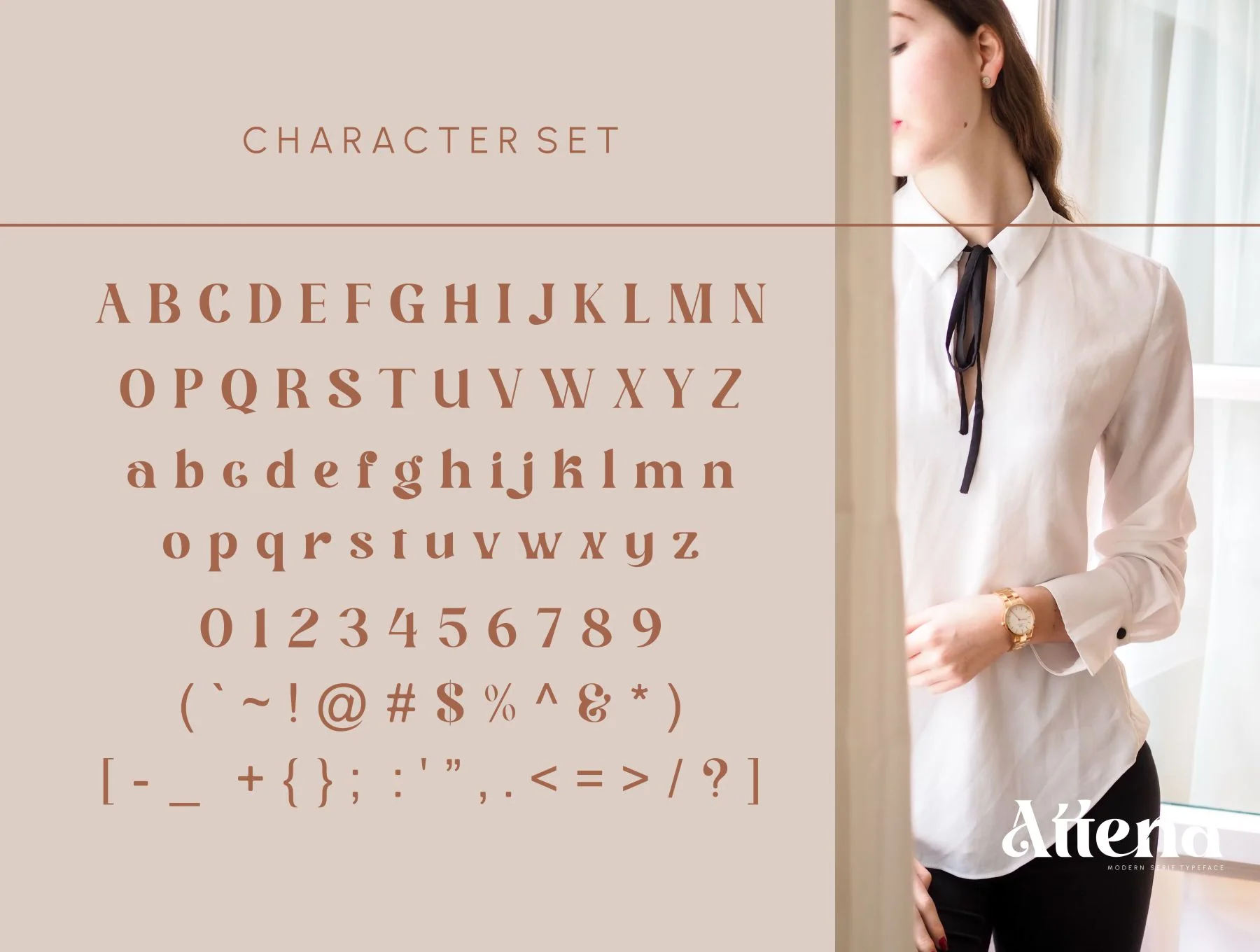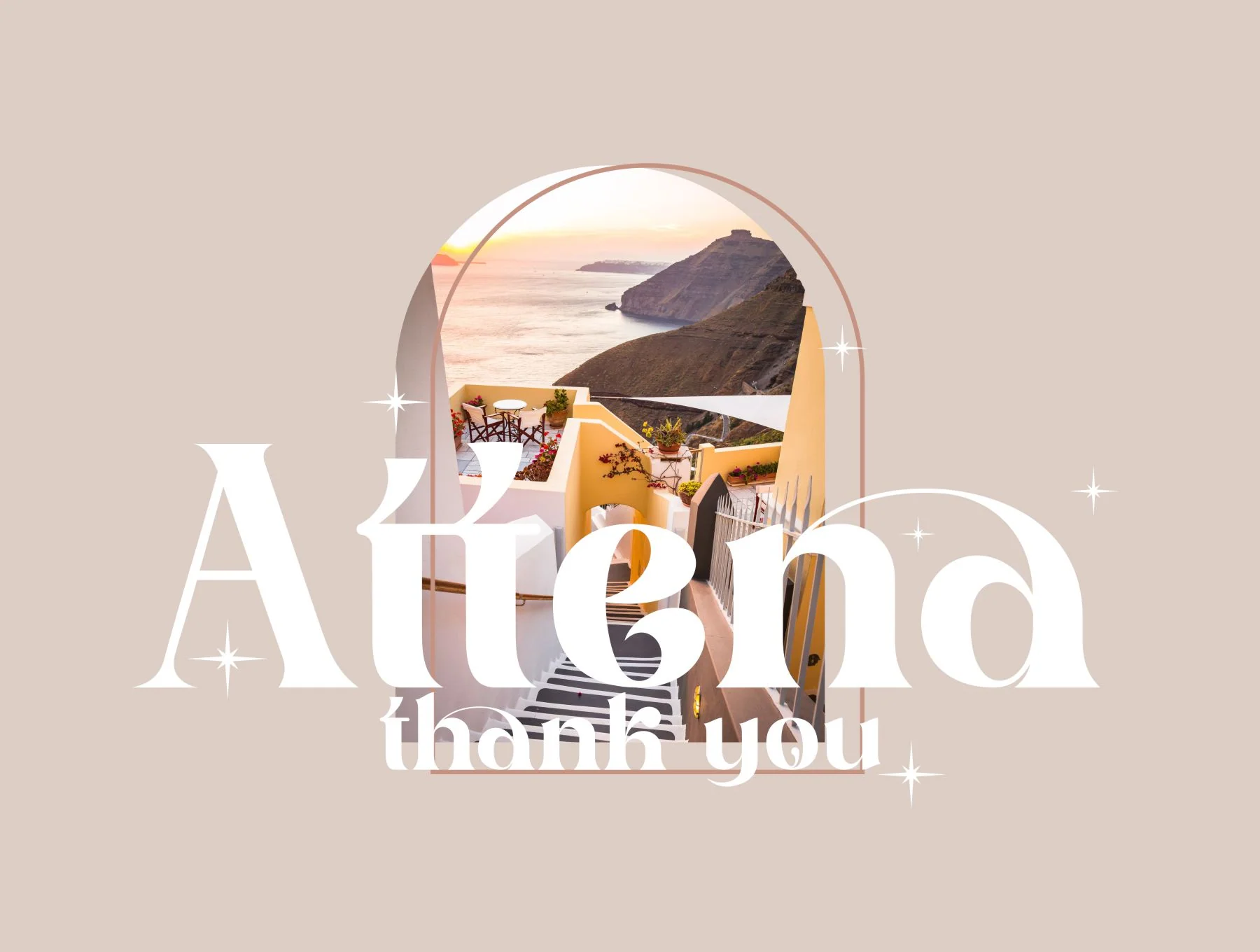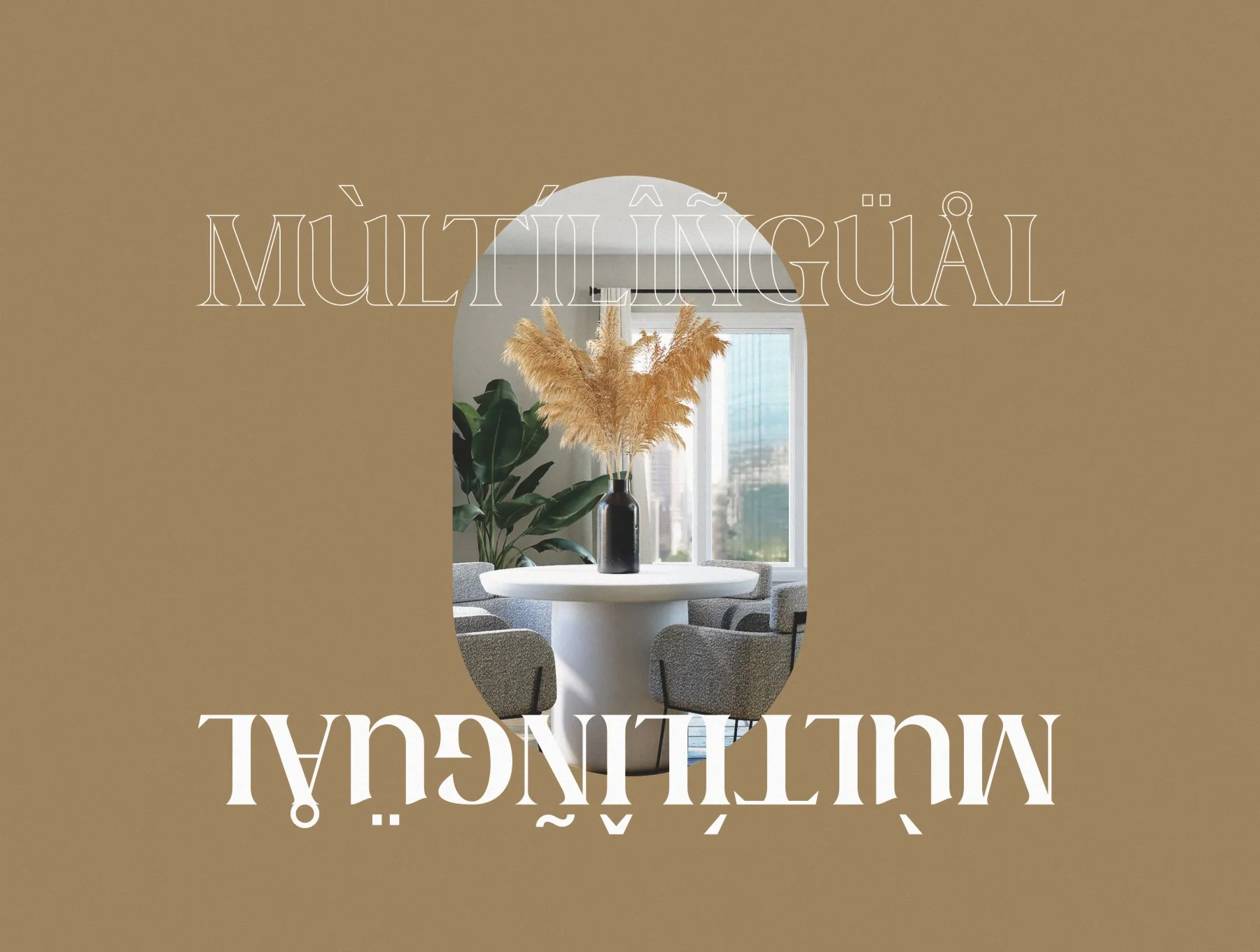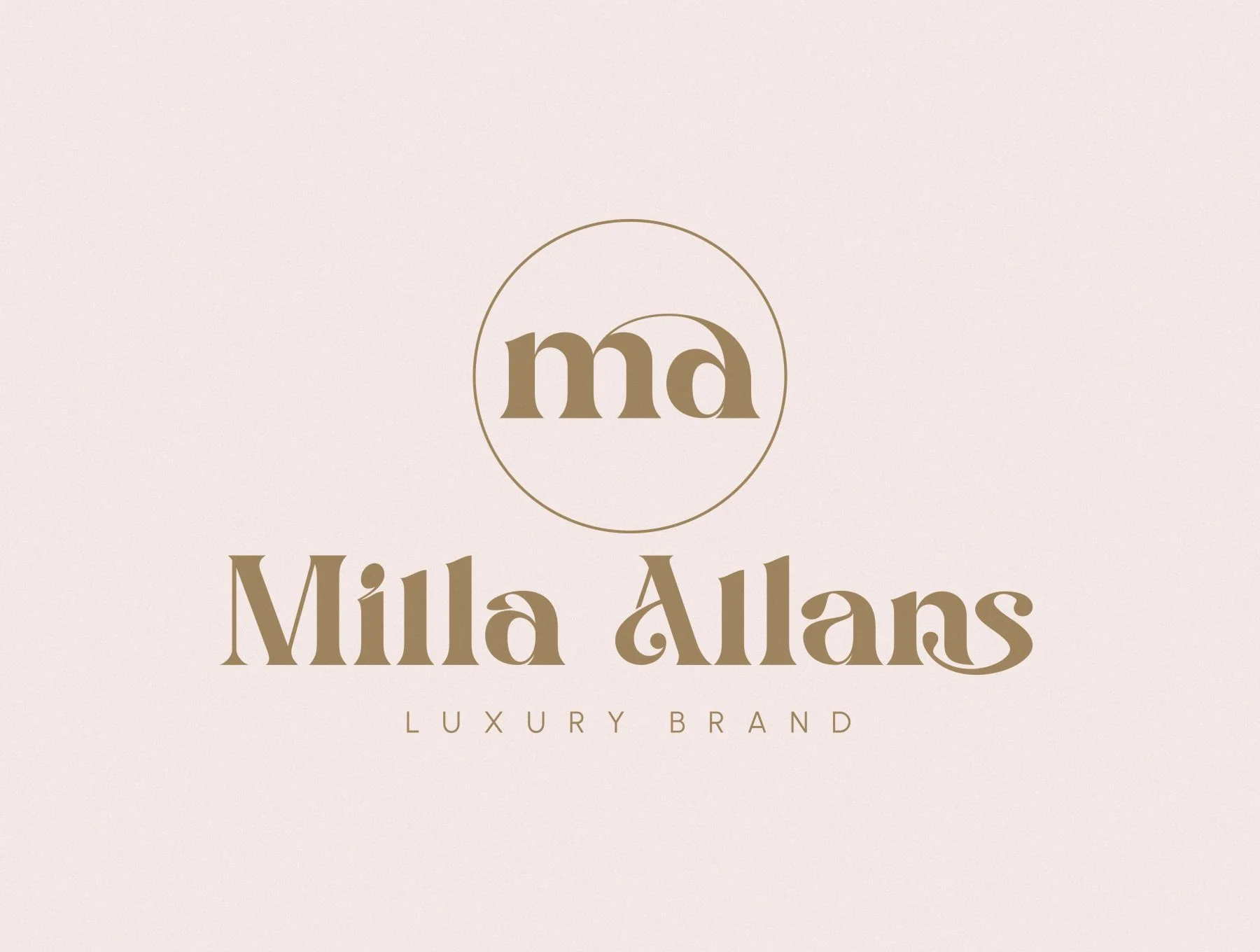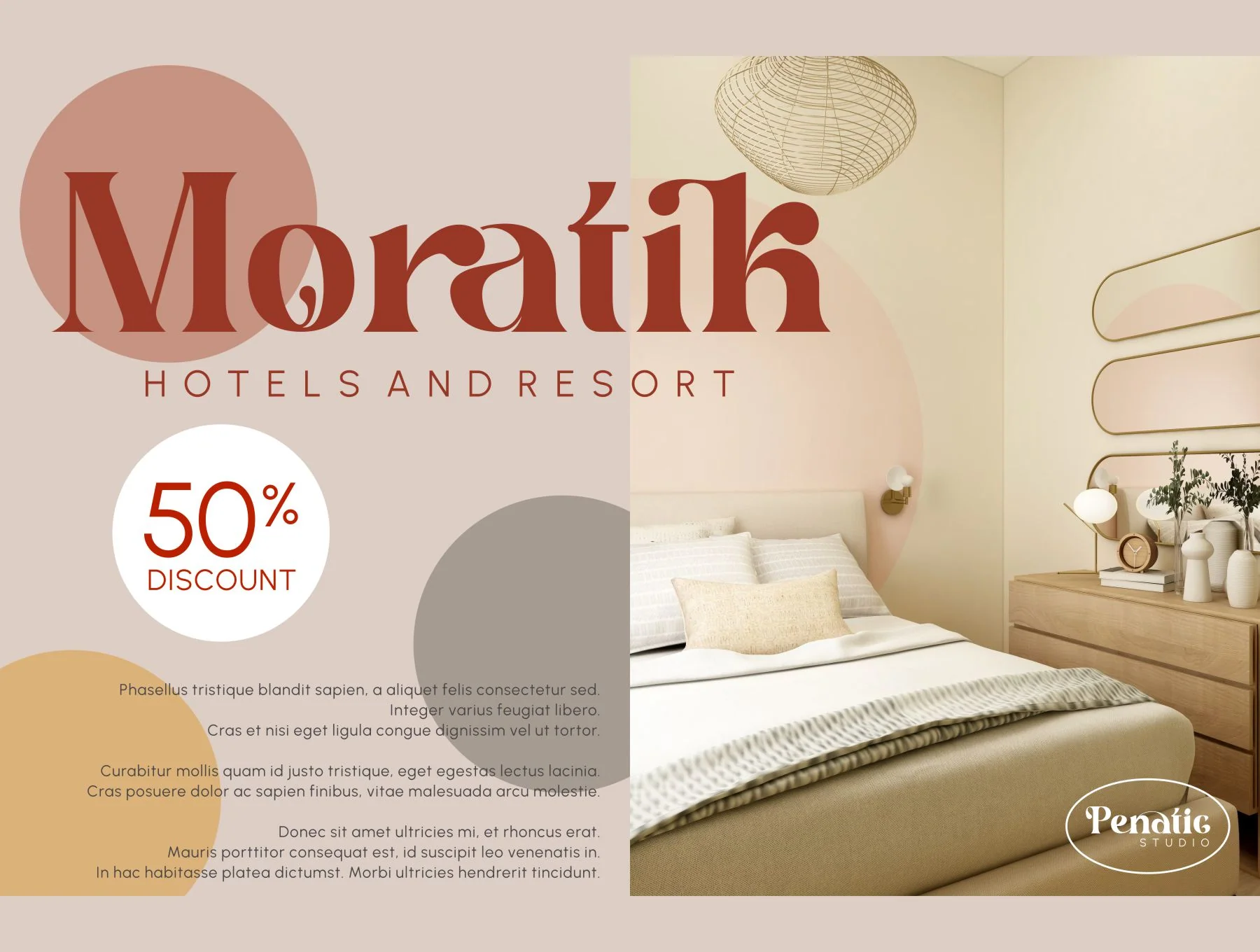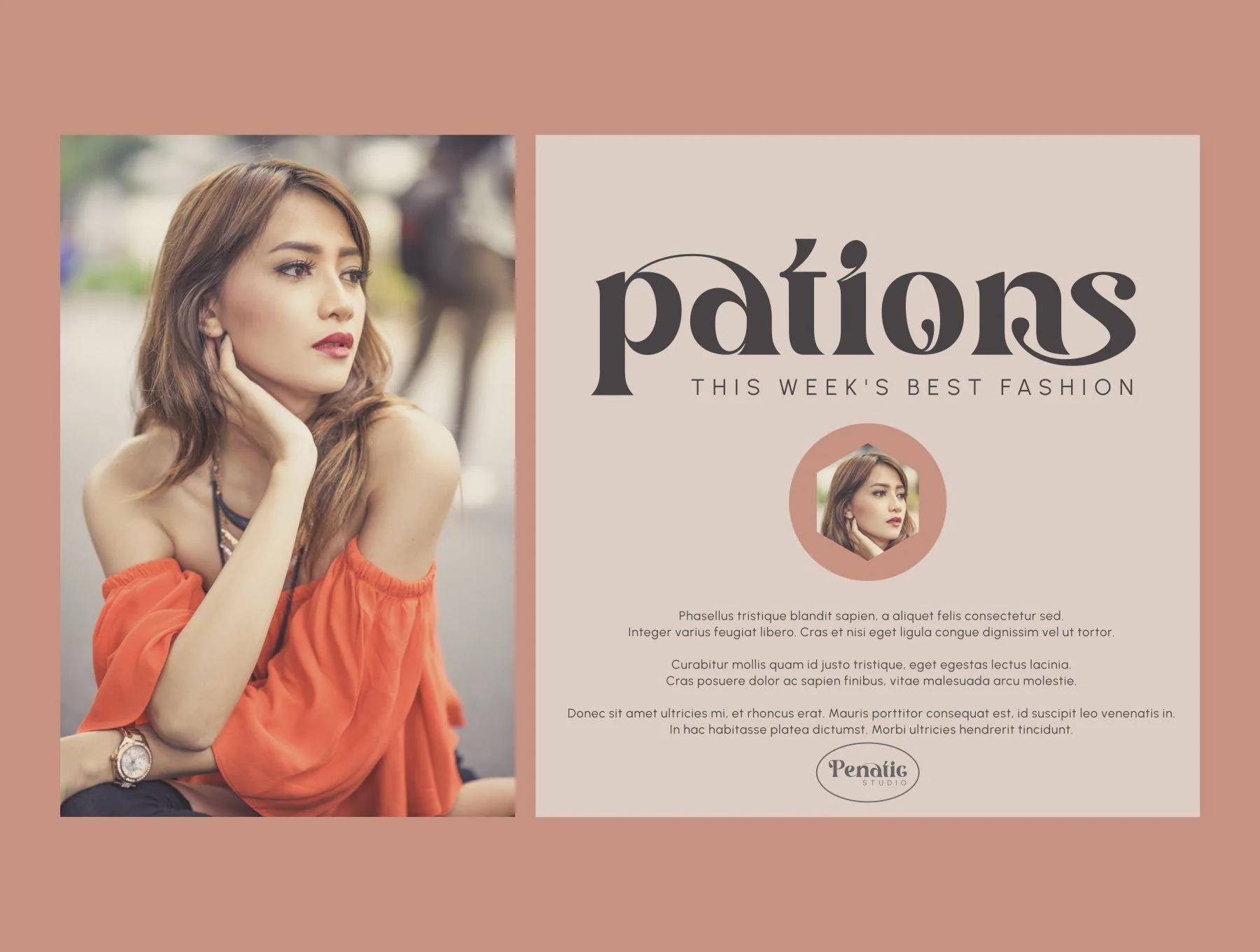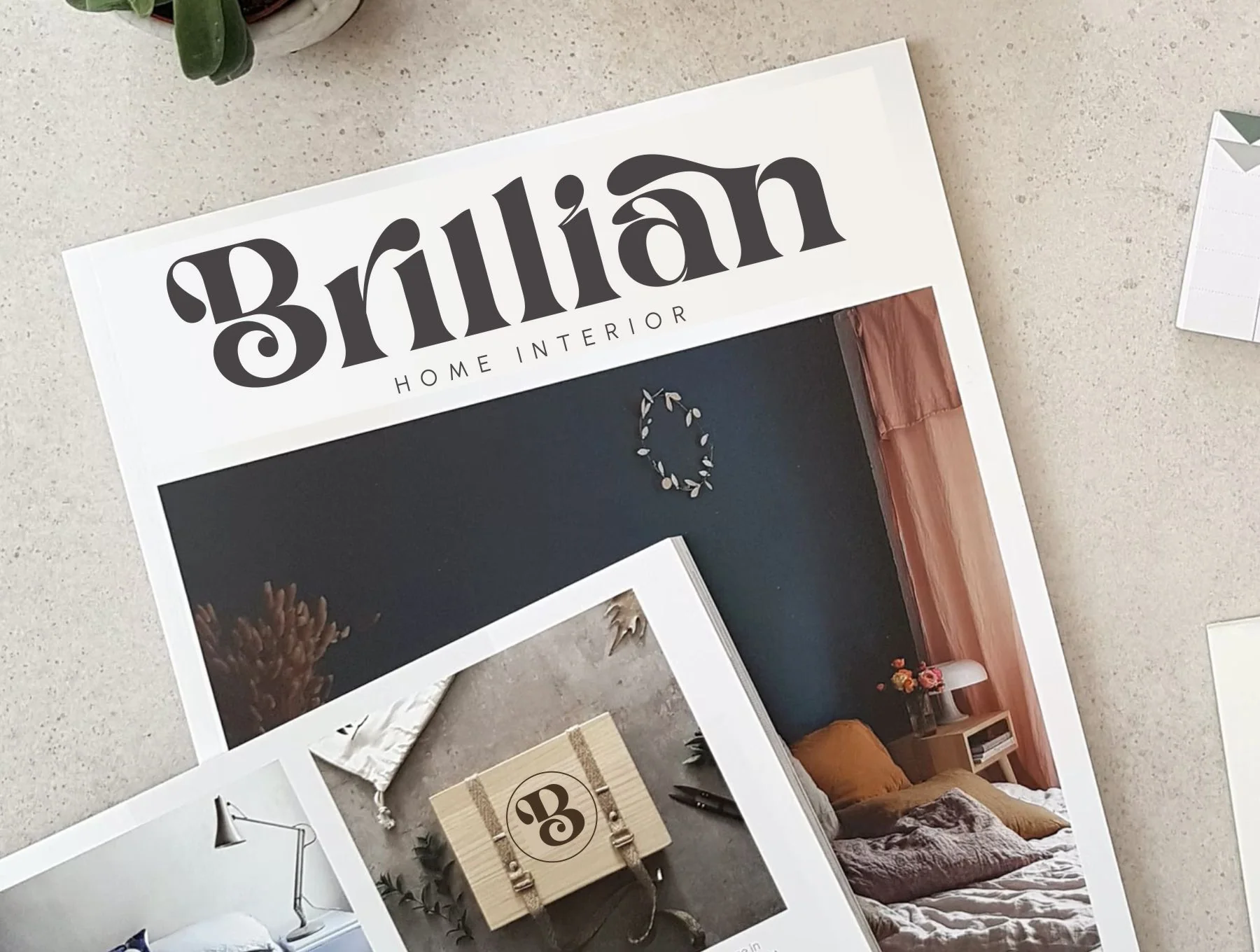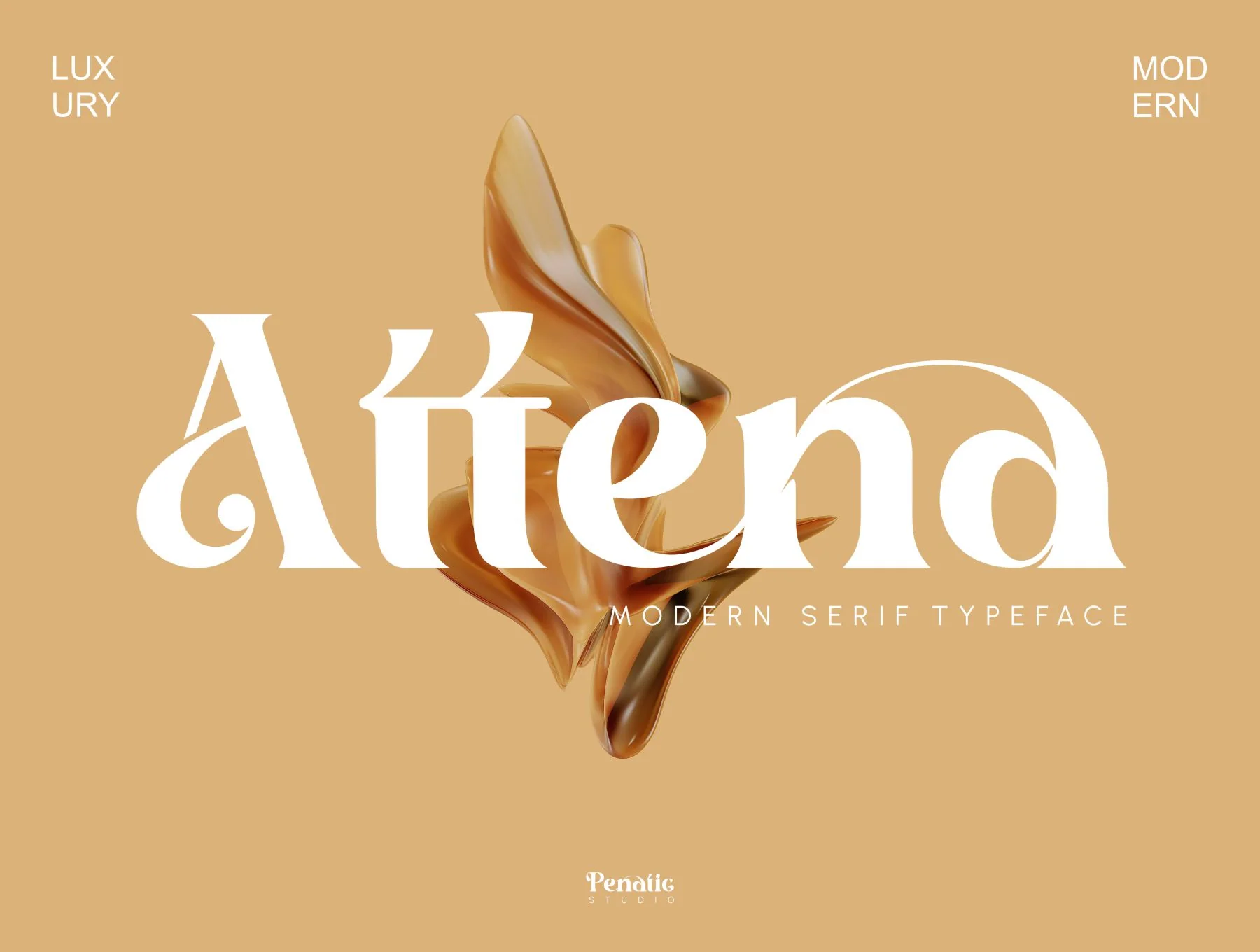
Attena _ modern serif typeface
Attena, a contemporary serif font
Alternates and ligature options
Attena is a contemporary serif typeface featuring numerous ligatures and alternate characters for versatile styling. Ideal for brand identities, invitations, posters, and more, it balances modern appeal with classic elegance through well-proportioned weight and multilingual support.